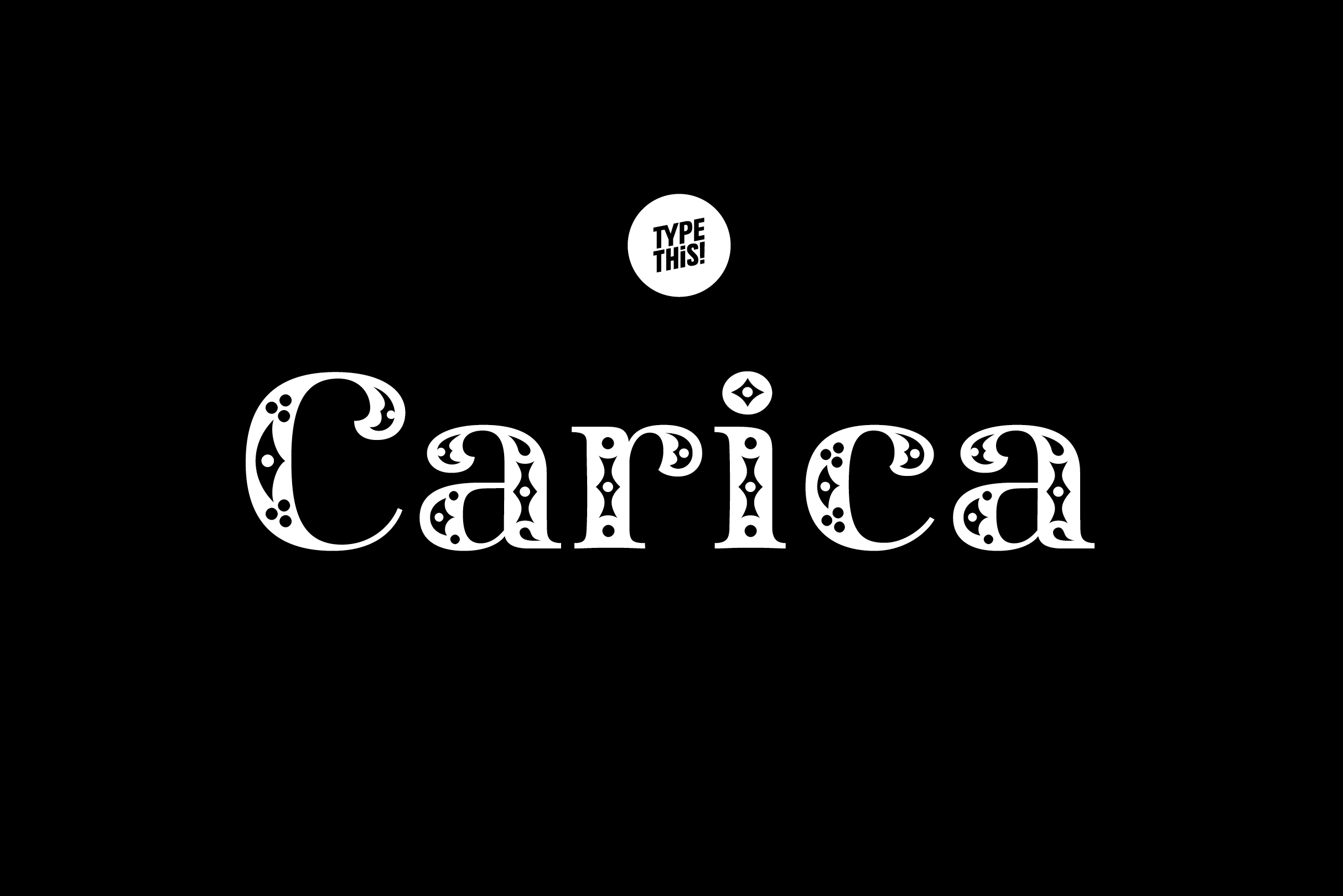
Carica Font
No matter if you want to showcase your artistic projects, visualize cultural events, or simply adore elaborately designed letters - Carica is the perfect font for it all.
- 514 Characters
- Old Style Figures
- Lining Figures
- Predefined Fractions
- Discretionary & Standard Ligatures
- Numerators/Denominators
- Sub-/Superscript
- 202 Latin languages supported